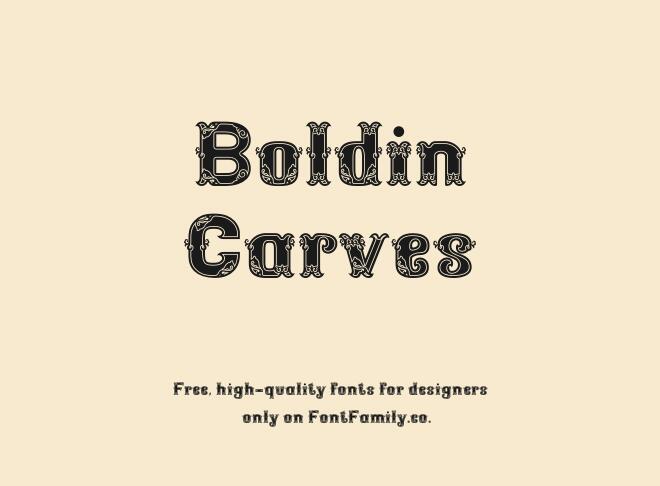
Boldin Carves Font
Boldin Carves Font, designed by Boldin Creative Studio, is a unique and robust typeface that exudes a vintage and rustic charm. Its bold, decorative design makes it a perfect choice for display purposes, especially for headers, logos, and signage. With its intricate carvings and meticulous detailing, Boldin Carves Font stands out among other fonts in its class, providing a distinct personality to any design it graces. Its vintage appeal is reminiscent of classic signage and typography, making it an excellent choice for projects that require a touch of nostalgia or a rustic feel. Despite its bold nature, the font maintains a certain level of readability, making it versatile for a range of design applications. Choose Boldin Carves Font for a distinctive, bold, and rustic aesthetic in your next design project.
Author | Boldin Creative Studio |